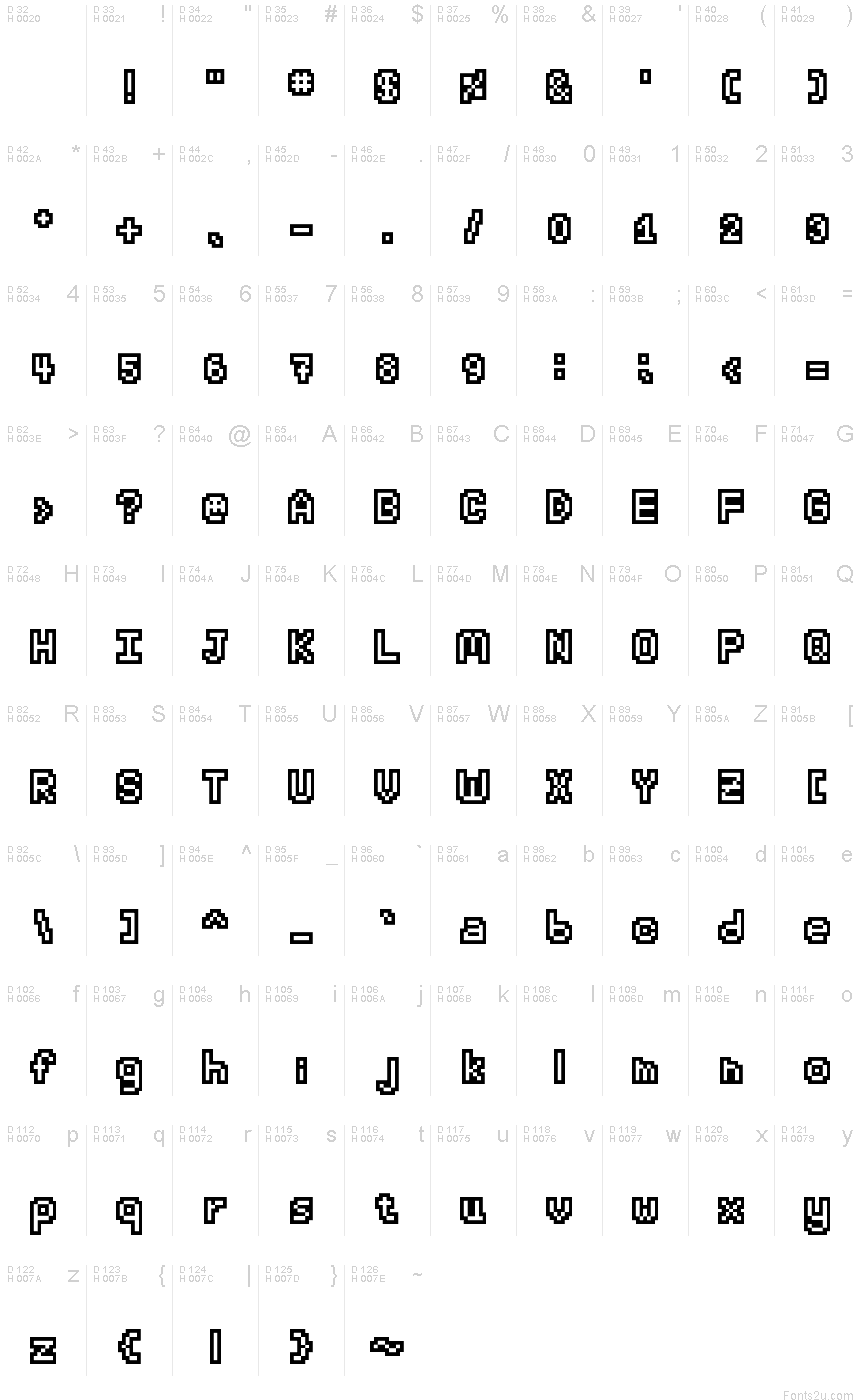
Brandi Alexander Outline Regular
This was specifically made for an adventure game. It's my first font, so it isn't much, but enough for those of you who want a simple pixelated font. The file comes with the font illustrated and a font that can be put over it to outline it. Feel free to use it for any purposes. Enjoy!